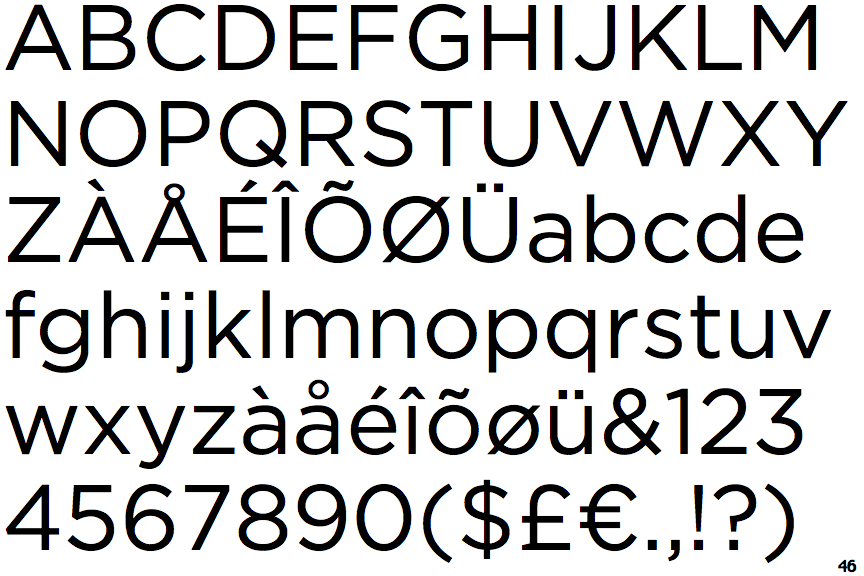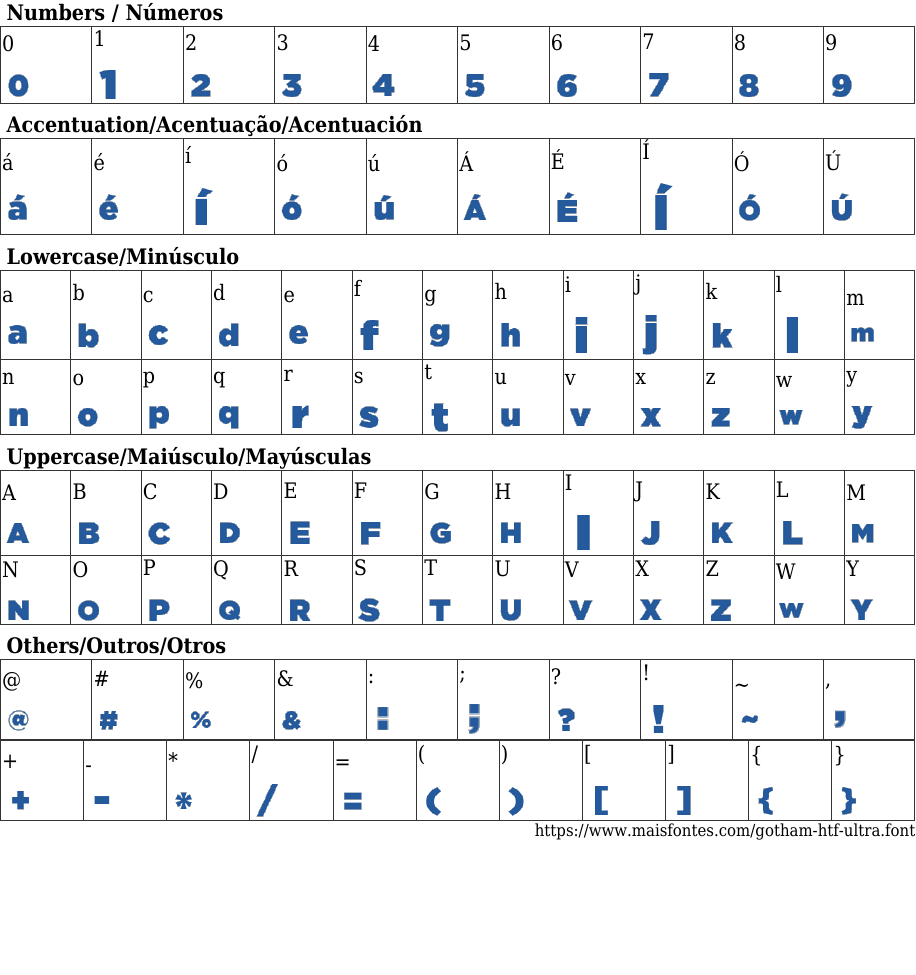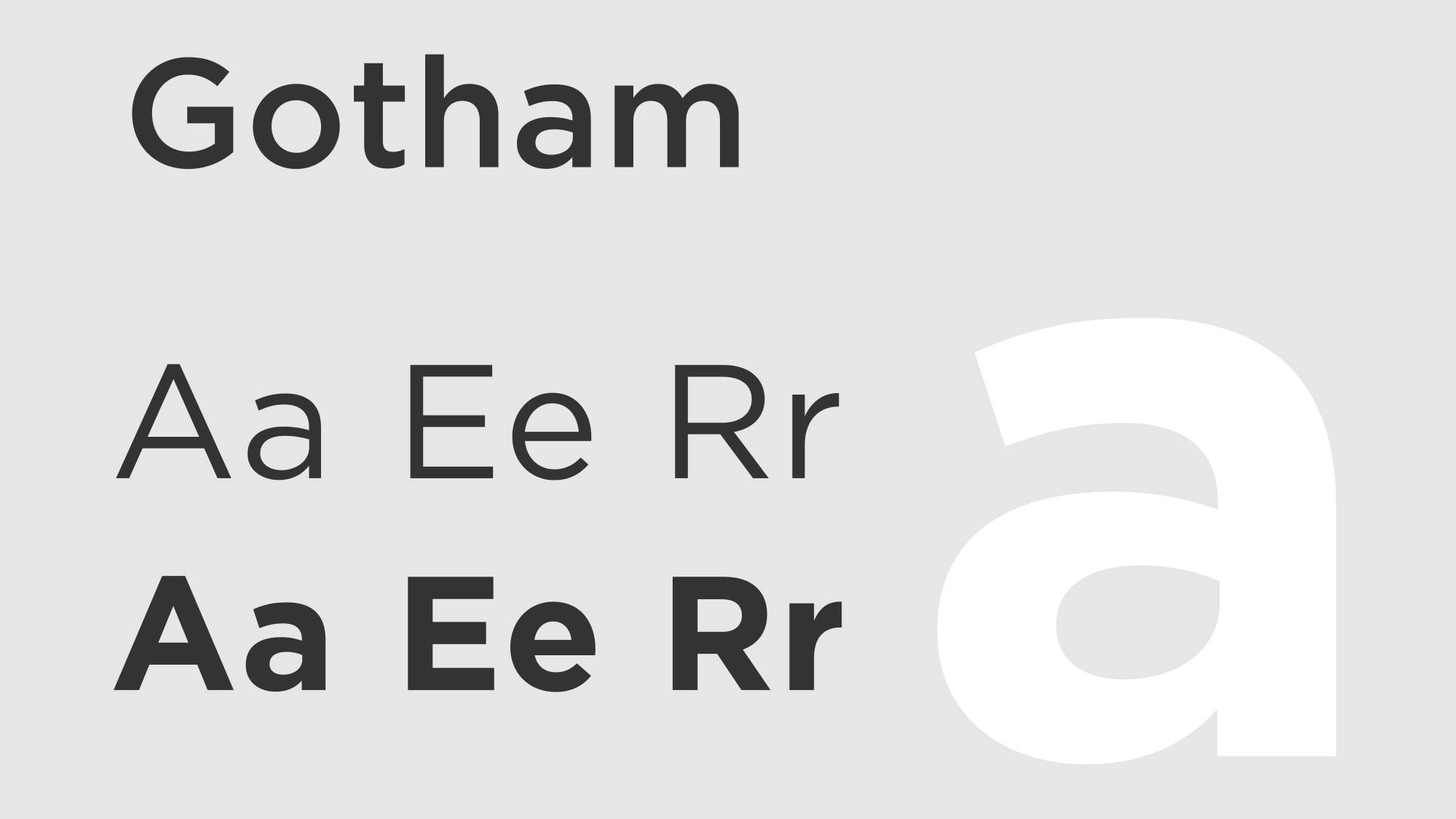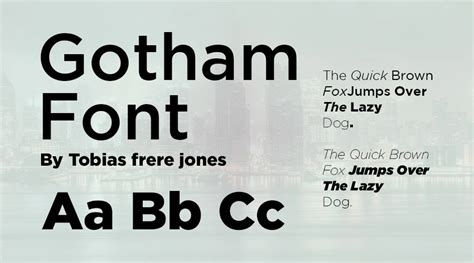
Htf Gotham Font
Htf Gotham Font - Gotham htf font family series mainly provide medium italic,medium,bold italic,bold and other font styles. Gotham htf simply means an old version of the gotham typeface. Here are some fonts similar to gotham htf. 'find my font' is an easy to use application for identifying fonts in digital images.